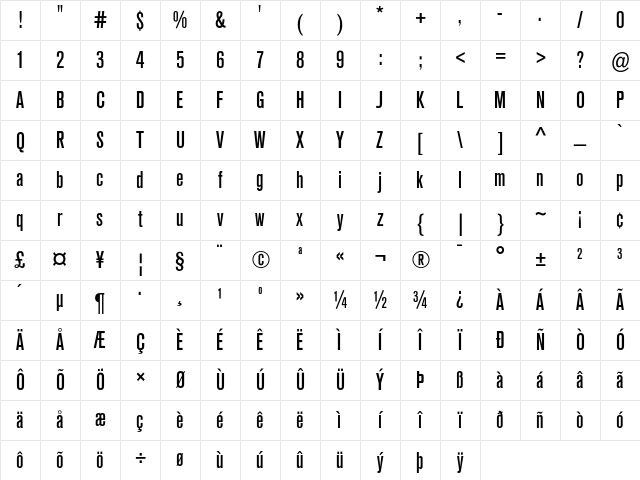
Akzidenz-Grotesk BQ Medium Condensed
Style: Medium Condensed
Complete Akzidenz-Grotesk BQ Medium Condensed glyph index. Displaying only characters natively supported by Akzidenz-Grotesk BQ Medium Condensed font.
Design Context for Akzidenz-Grotesk BQ
Akzidenz-Grotesk BQ takes a clean, functional approach - its unadorned letterforms prioritise legibility and work reliably across screen and print environments. Its narrow stance lets it pack a punch even in space-constrained designs.
Font Pairing: Works well alongside a characterful serif or display font that can carry the expressive load while Akzidenz-Grotesk BQ handles the functional copy.
Pro Tip: Use Akzidenz-Grotesk BQ tightly set in headlines and banners - its condensed proportions make it ideal for maximum impact in minimum horizontal space.